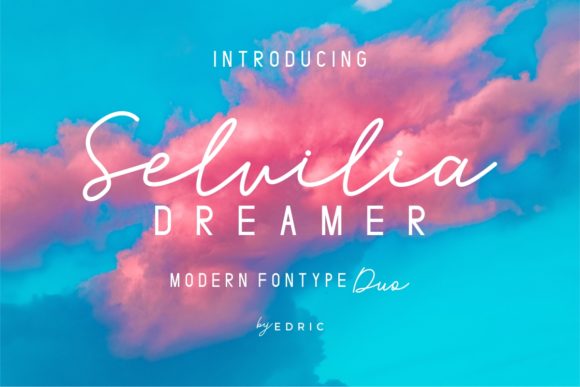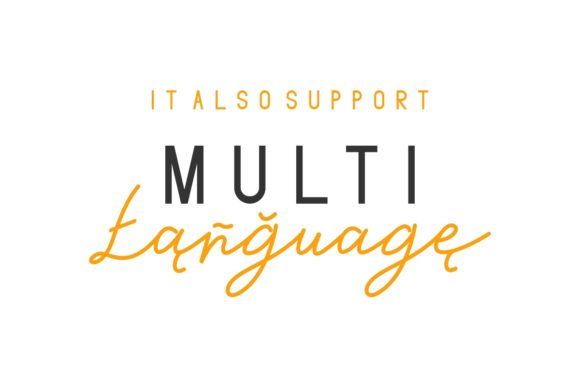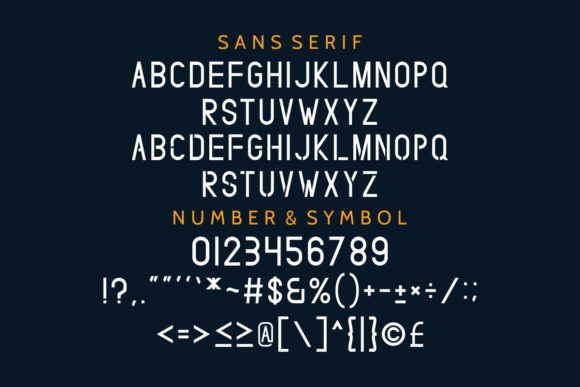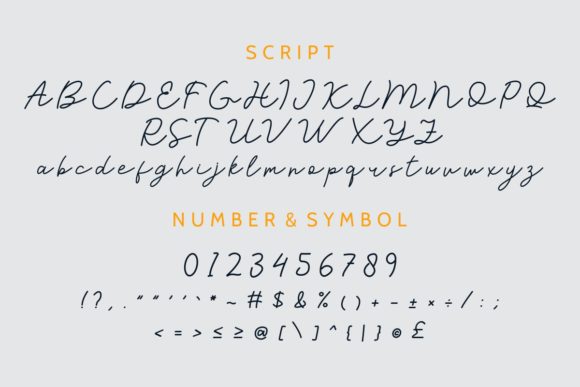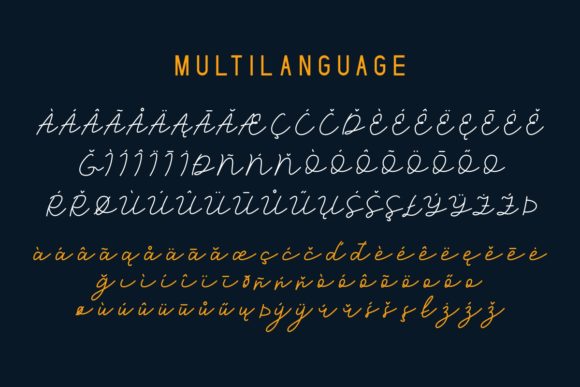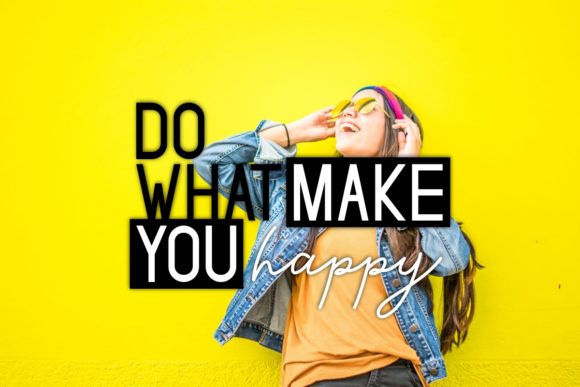
Introduction to Selvilia Dreamer Font
Have you ever been stuck in front of a blank canvas, struggling to bring your creative vision to life? As a designer, this moment is all too familiar. But what if you had the perfect tool to unlock your imagination and elevate your design game?
Enter the stunning Selvilia Dreamer Font, a beautiful font duo featuring sans and script styles that work in perfect harmony. With its high-quality design and transparent background, this font is a treasure trove of creative possibilities. And the best part? It’s available for free download, making it an invaluable resource for designers of all levels.
Whether you’re working on a personal project or a professional design brief, the Selvilia Dreamer Font is an essential design resource that’s sure to inspire and delight. In this article, we’ll dive deeper into the world of this incredible font and explore its many uses, from branding and marketing materials to digital design and beyond.
Key Features of Selvilia Dreamer Font
- High-quality font design with a unique, dreamy aesthetic, ideal for creative projects.
- Transparent background, allowing for seamless integration with any design or image.
- Includes multiple font styles, including regular, bold, italic, and bold italic, for added versatility.
- Perfect for use in various design projects, such as logos, typography, and creative graphics.
Honest Review: Selvilia Dreamer Font
I recently came across the Selvilia Dreamer Font, and I must say it’s been a fantastic addition to my design resource collection. The font’s high quality is evident in its elegant and dreamy aesthetic, making it perfect for creative projects that require a touch of whimsy.
One of the standout features of this font is its transparent background, which allows for seamless integration with any design. This makes it an excellent choice for graphic designers, illustrators, and writers looking to create visually appealing content.
Here are some of the things that work well with the Selvilia Dreamer Font:
- ✨ High-quality design that exudes elegance and sophistication
- ✨ Transparent background for easy integration with any design
- ✨ Perfect for creative projects, such as book covers, posters, and website headers
- ⚠️ Limited character set, which may require additional font combinations for certain designs
- ⚠️ Not suitable for body text due to its ornate and decorative nature
Overall, I’m thoroughly impressed with the Selvilia Dreamer Font. It’s a fantastic design resource that’s perfect for creative projects. Plus, it’s available for free download, making it an excellent choice for designers on a budget.
Common Use Cases for Selvilia Dreamer Font
The Selvilia Dreamer Font is ideal for a variety of creative projects, including graphic design, digital art, and typography-based designs. Its high quality and transparent background make it an excellent choice for designers looking to create visually appealing and professional-looking graphics.